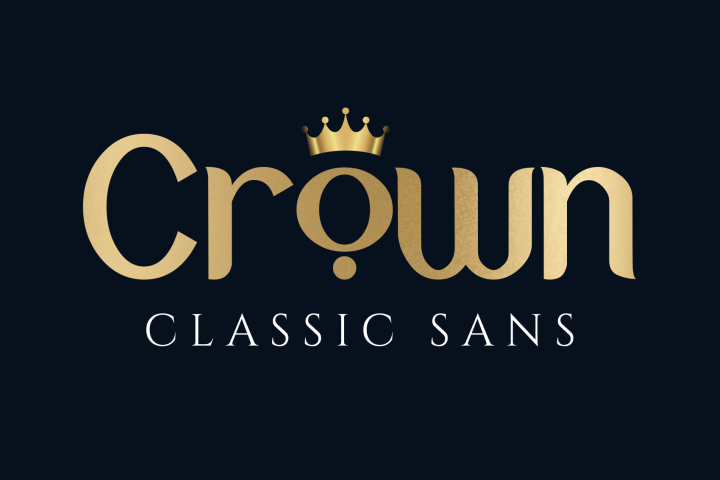
- Uppercase and lowercase characters
- Multilingual support
- Opentype features: stylistic alternates, ligature
Crown is a display sans font comes with 2 set of uppercase and lowercase, some alternates and ligatures. Great for brand identity, poster design, packaging design, website / display, editorial, headline, logos, and more.